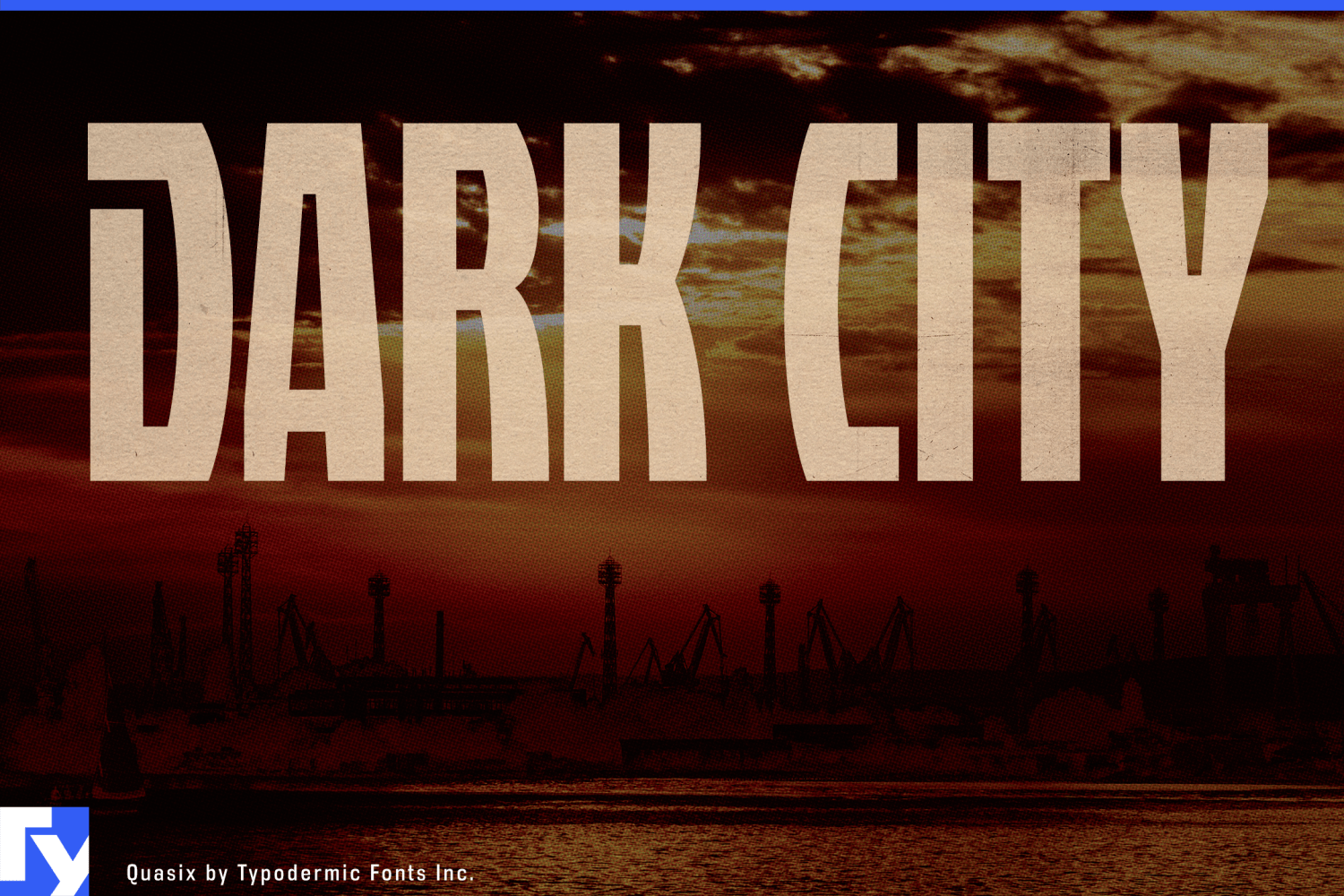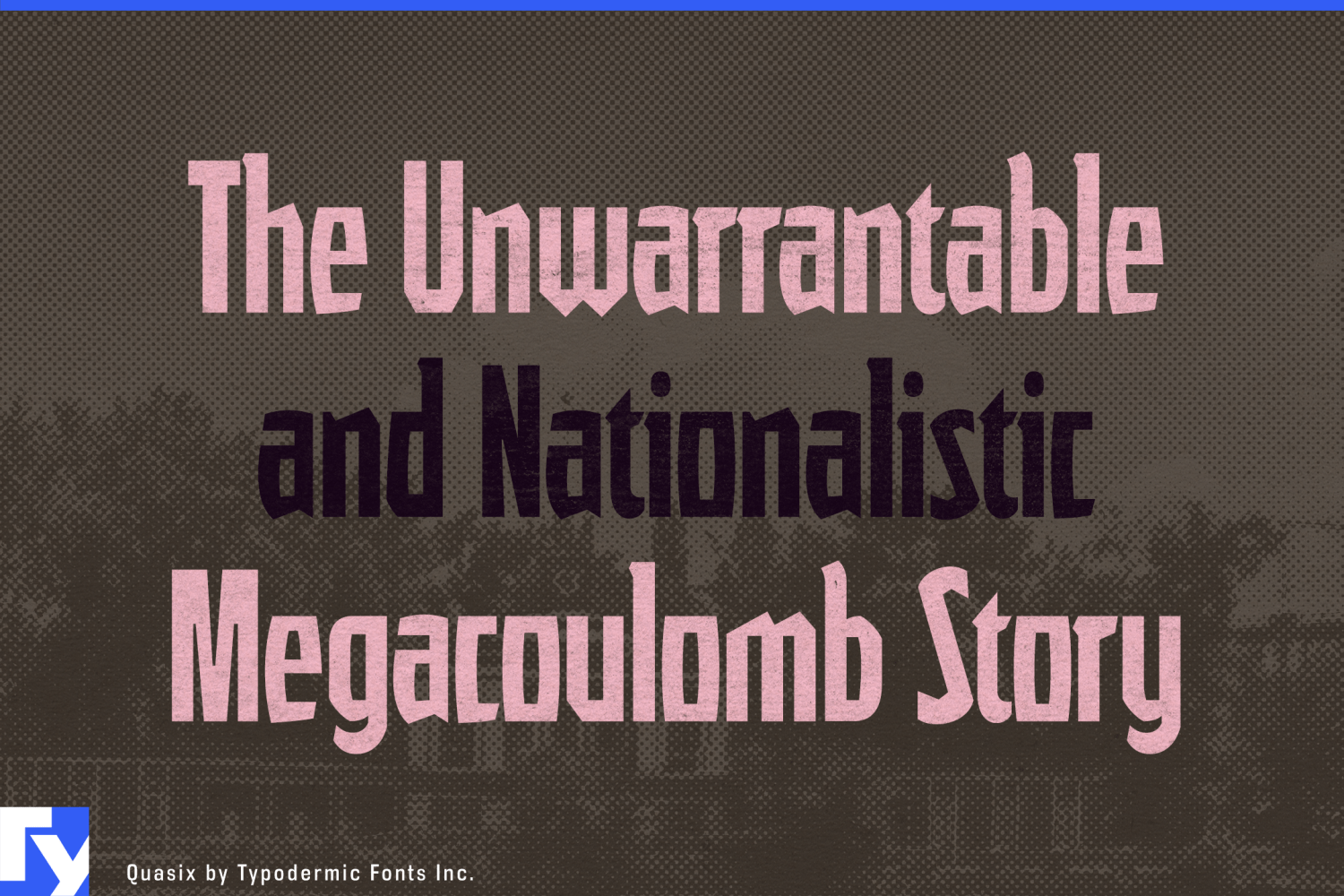
About Quasix
In the realm of typography, Quasix stands as a delightful paradox—a compact industrial headline design that thumbs its nose at convention. This isn’t your run-of-the-mill font; it’s a visual enigma that challenges perceptions and ignites…